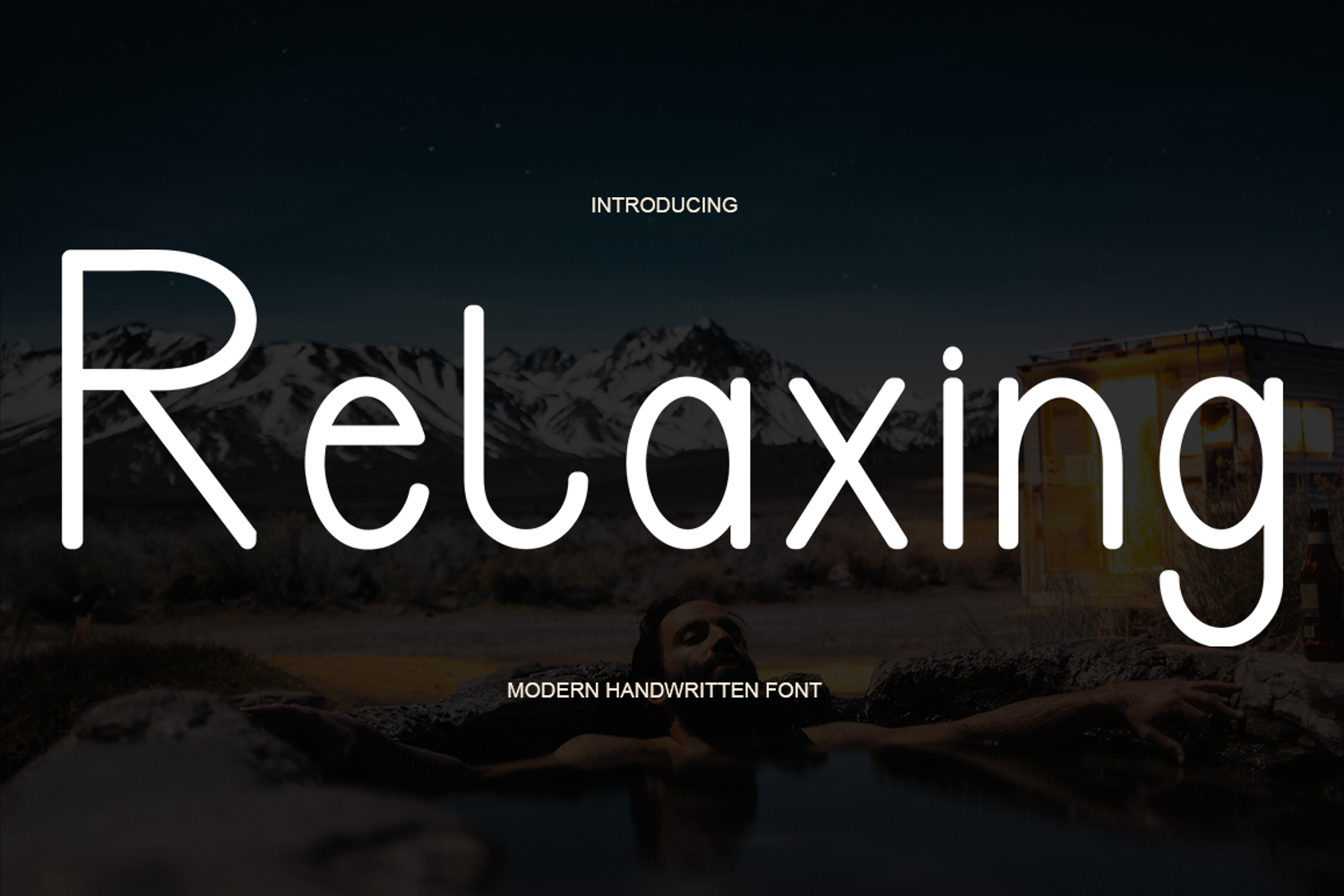
Beautiful Handwriting
Relaxing your favorite projects. Fall in love with its completely different and timeless style and can use it to create wall designs, logos, wedding invitations, stationery, product labels, photography and much more.